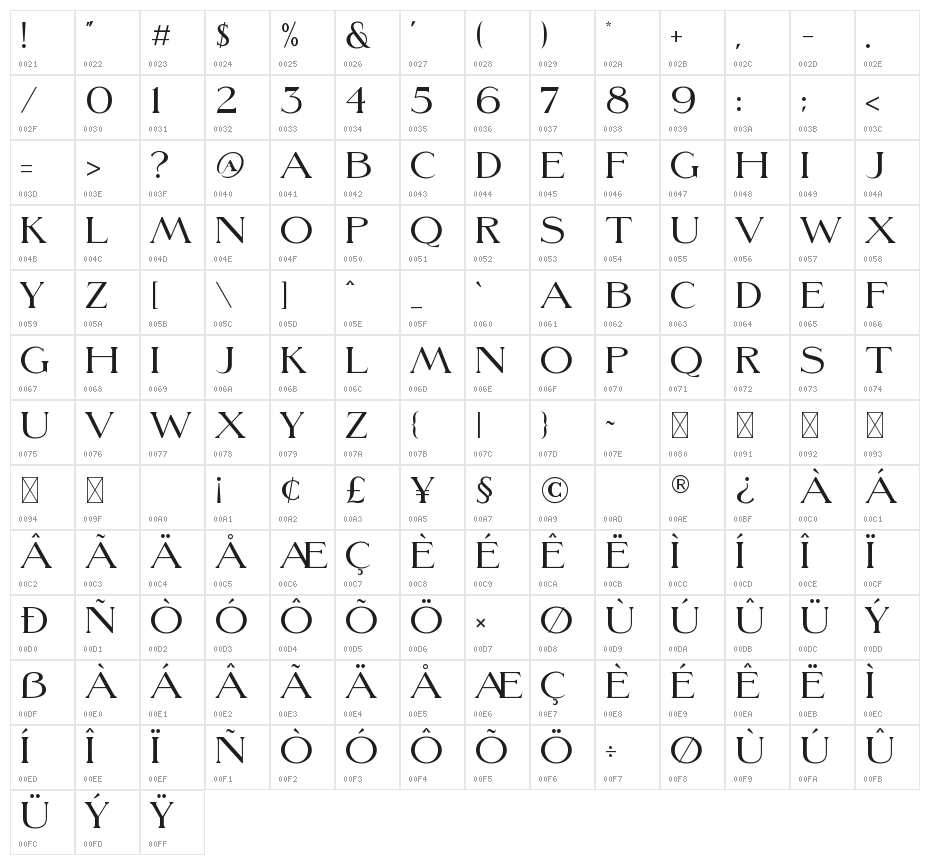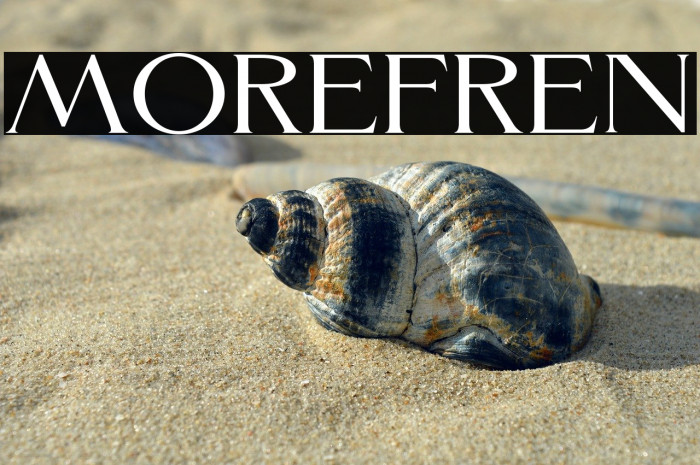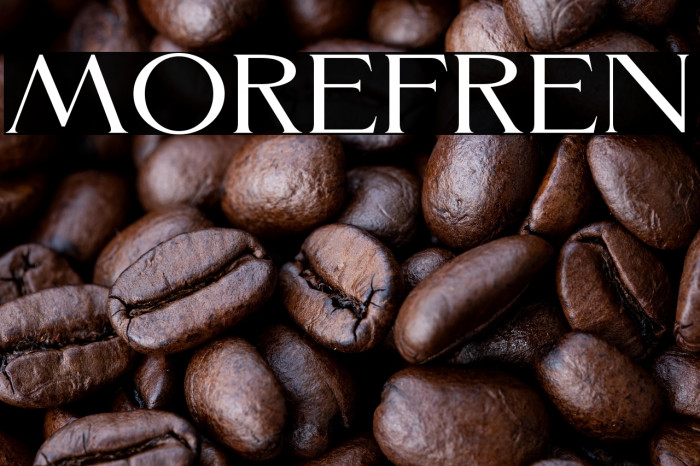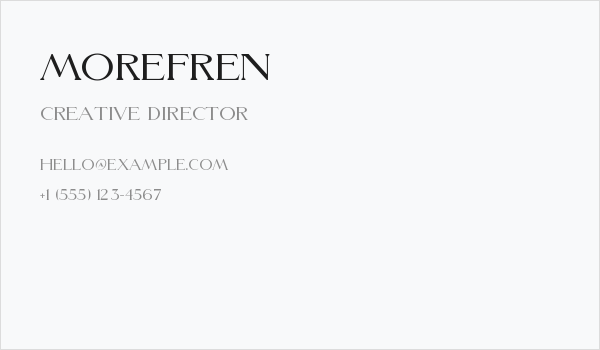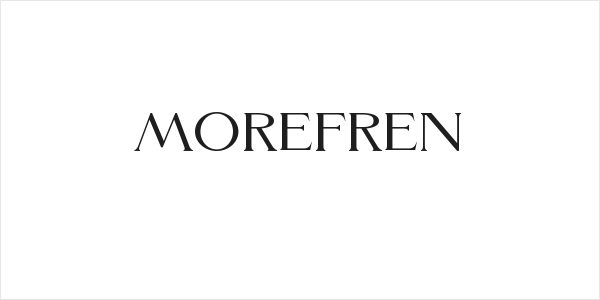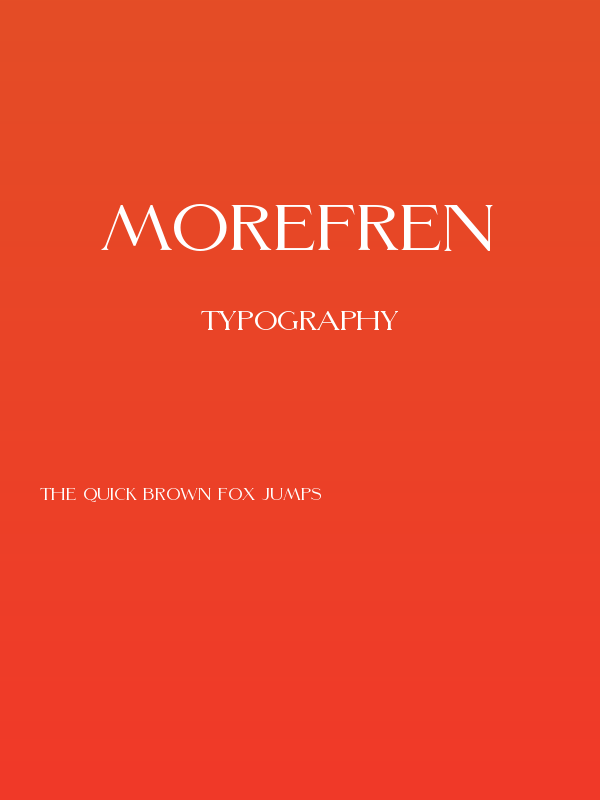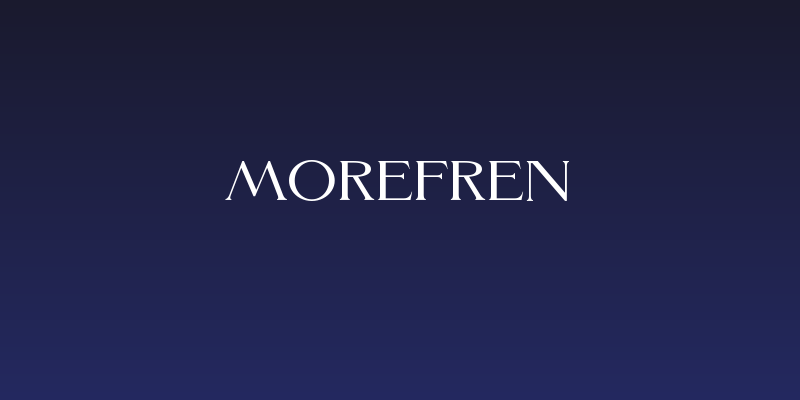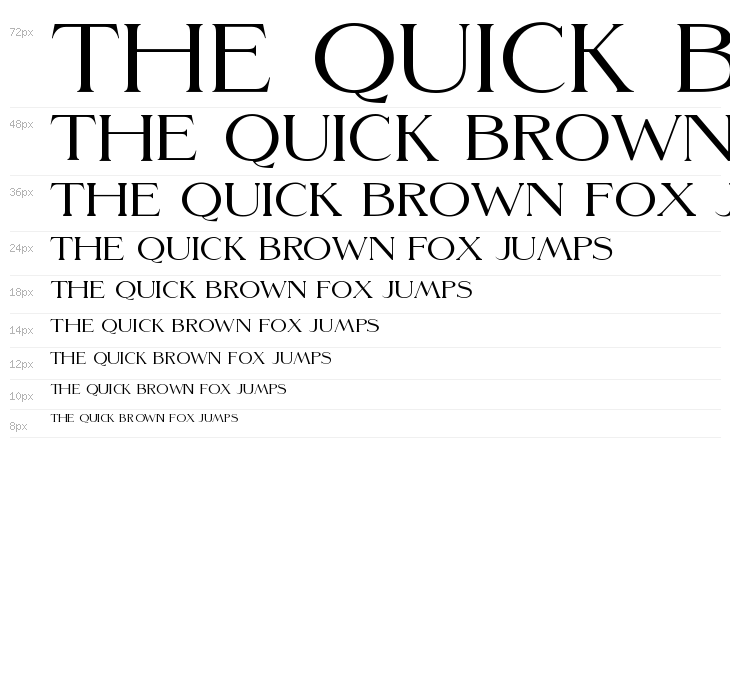
Morefren Font
This font exhibits a refined and elegant serif style, characterized by its high contrast between thick and thin strokes. The serifs are sharp and pronounced, adding a touch of sophistication and classic appeal. The uppercase letters are tall and commanding, while the lowercase letters maintain a balanced and harmonious appearance. The numerals are clear and distinct, ensuring readability. Special characters are crafted with the same attention to detail, making them suitable for a variety of applications. The overall design conveys a sense of tradition and formality, making it ideal for projects that require a touch of elegance.
| Overall Style | Classic |
| Use Case | Headlines, Logos, Editorial design |
| Proposed Projects | Ideal for luxury branding, editorial design, formal invitations, and high-end packaging. |